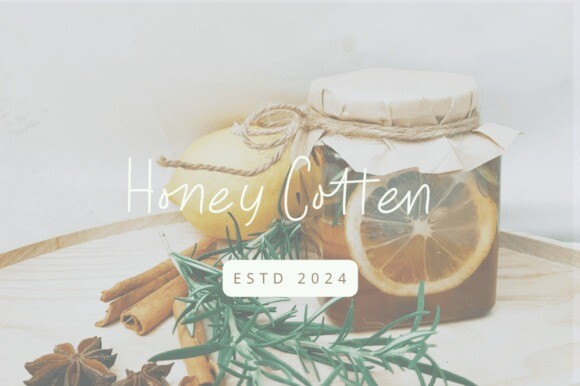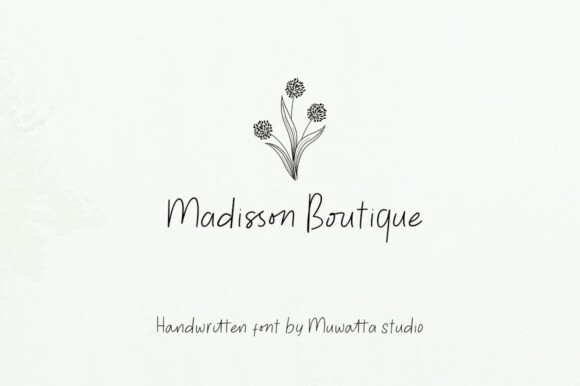
On Farming Font
On Farming Font is a natural, organic-inspired handwritten font designed to capture the simplicity and authenticity of farm life. With its hand-drawn, rustic letterforms, this typeface brings a warm, personal touch to any design. Perfect for brands promoting sustainability, organic products, or eco-friendly initiatives, On Farming delivers a fresh and approachable look.
The font’s relaxed, handcrafted style makes it ideal for product labels, farm signage, packaging, or branding that values an earthy, wholesome aesthetic. Bring your organic vision to life with the organic charm of On Farming Type Face.